Continuing from the previous article, here are the various types of font styles that you need to know before buying or using them. Each style has unique characteristics that can influence the mood, message, and visual appeal of your design. Here’s a detailed guide to different font styles:
Script
Script fonts mimic elegant handwriting, often used in wedding invitations, logos, and designs that need a touch of sophistication. Quadrian is one of popular script fonts.
Brush Script
Brush script fonts resemble handwriting with a brush, offering a relaxed, casual, and creative look. Examples include Hadnich and Malinsha.
Blackletter
Also known as Gothic, Blackletter fonts are characterized by their thick, ornate letters, often used in medieval manuscripts and for dramatic effect in modern design. You might try Knight Anomaly or Backrows.
Handwriting
Handwriting fonts imitate the look of natural handwriting, providing a more informal and personal touch. These fonts are often used in designs that need a casual or personalized feel.
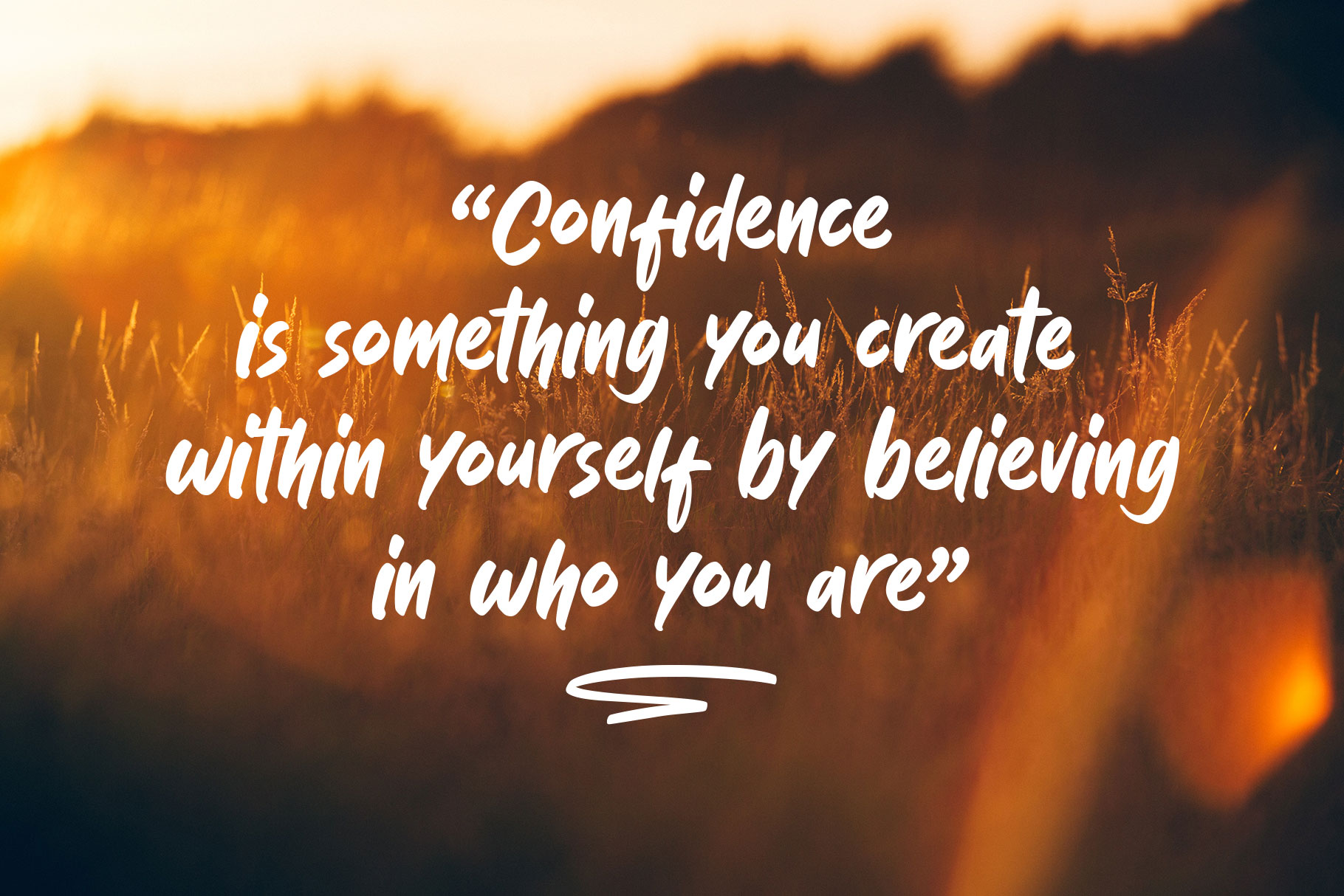
Freestyle Brush
Freestyle brush fonts feature letters that appear to be drawn freely with a brush, adding an expressive and spontaneous feel to designs.
Graffiti
Graffiti fonts are inspired by street art, featuring bold, expressive, and often unconventional letterforms. They are suitable for urban designs or those needing a rebellious aesthetic. Mister Dangerous is a good choice.
Cursive
Cursive fonts are a type of script where the letters are connected, resembling formal handwriting. They are often used in official documents or elegant designs.
Signature
Signature fonts mimic the look of elegant handwritten signatures. Such like Wonderful Melanesia, they are commonly used in logos, branding, or designs that require an exclusive, personal touch.
Arabic Style
Arabic styles visualize the characters of Arabic script, often used in designs that require a Middle Eastern aesthetic or cultural authenticity.
Japanese Style
Japanese fonts are designed to resemble Japanese characters, including Kanji, Hiragana, and Katakana. These fonts are perfect for designs with an Asian or Japanese cultural theme. Take a look for The Last Shuriken or Shikamaru!
Understanding these different font styles can help you choose the right one for your design project, ensuring that your message is delivered in the most effective and visually appealing way. Each font type has its own strengths and uniqueness that you can leverage to create memorable designs.